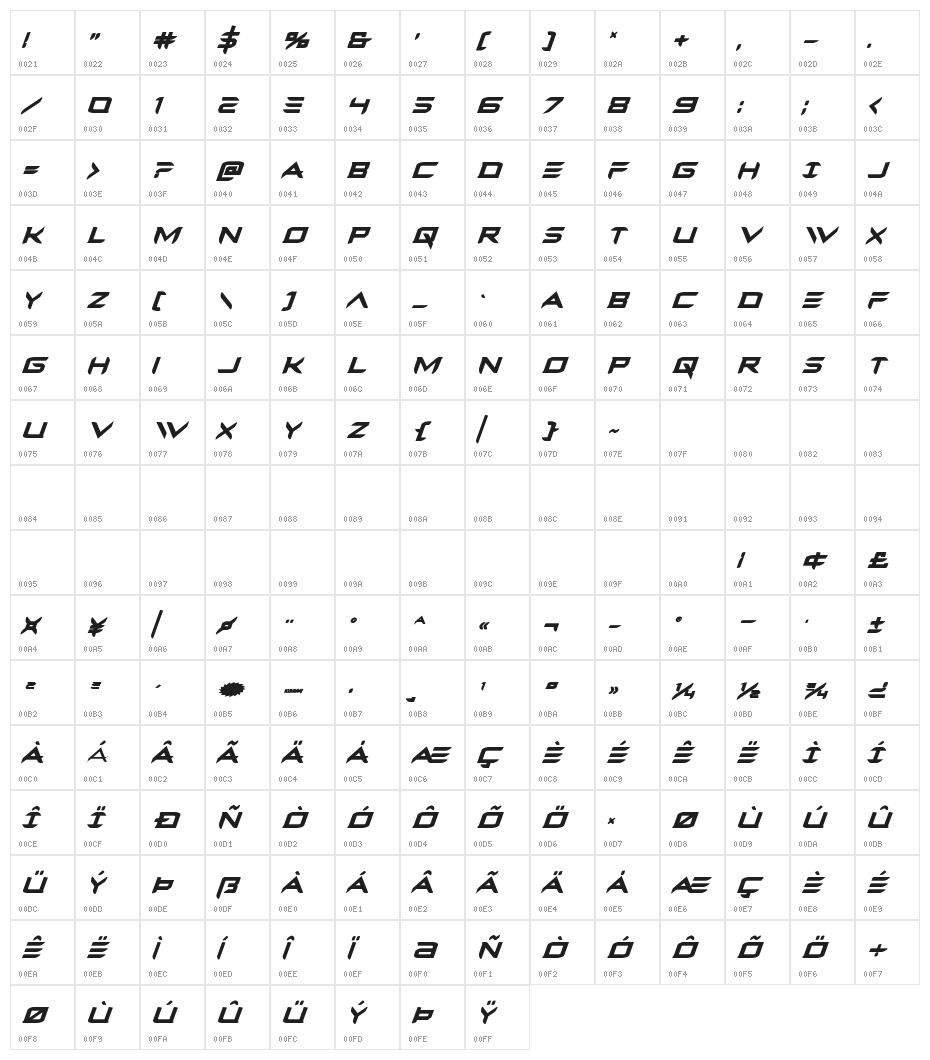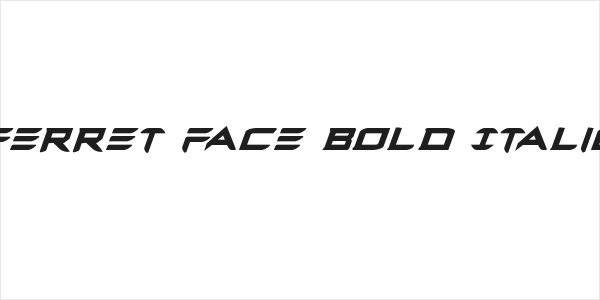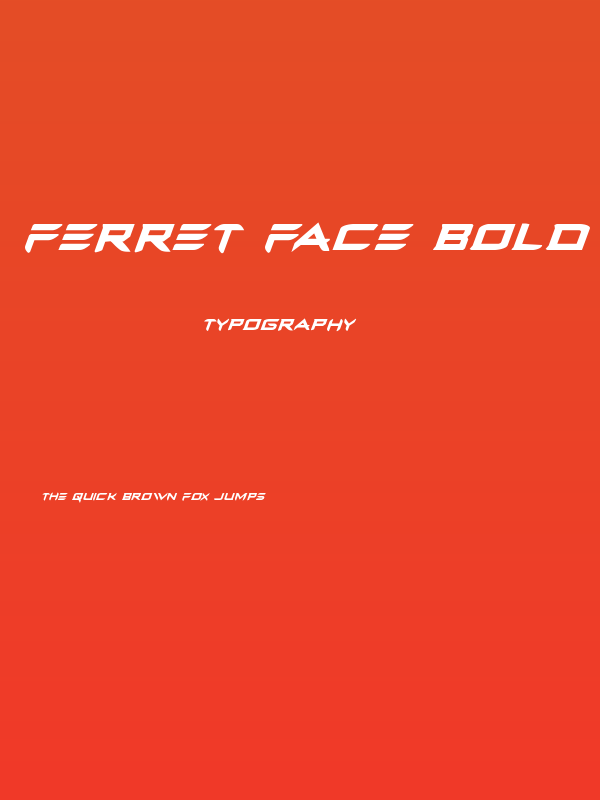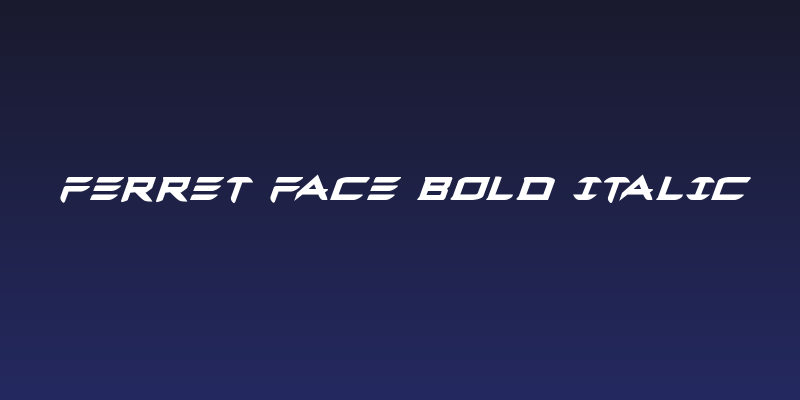
Ferret Face Bold Italic Font
Ferret Face Bold Italic Description
This font features a bold and italicized style with a futuristic and dynamic appearance. The characters are angular and sharp, giving a sense of motion and speed. The uppercase letters are particularly striking, with unique cuts and angles that create a sense of energy. The numbers and special characters maintain this dynamic style, ensuring consistency across all glyphs. The font's design is ideal for projects that require a modern and edgy look, such as technology branding or sports-related graphics.
| Use Case | Logos, Headlines |
| Proposed Projects | Ideal for technology branding, sports graphics, and dynamic logo designs. |